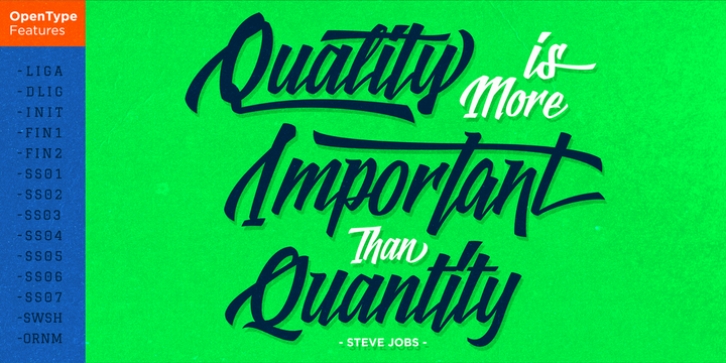
Logotype Frenzy was published by Decade Typefoundry. Logotype Frenzy contains 1 style.
Logotype Frenzy is a display typographer's guilty pleasure. It's one of the very few fonts ever made that can take intense abuse and still look natural. It comes with over 1000 characters, including a lot of alternates and extended language support.
In OpenType savvy applications, some letter combinations are automatically replaced with ligatures for a more natural look.